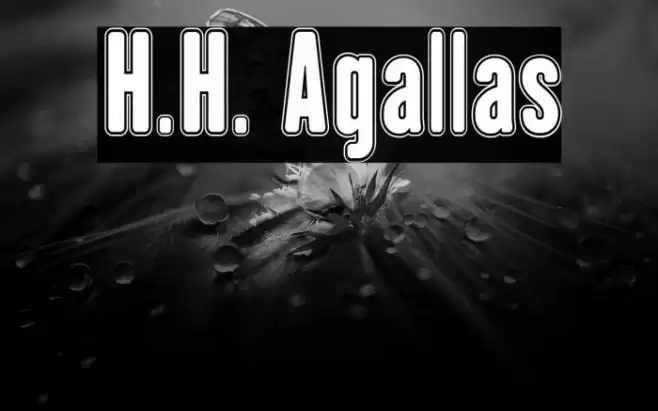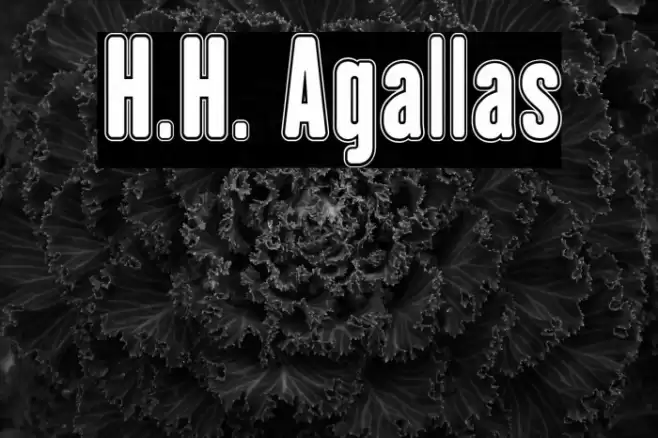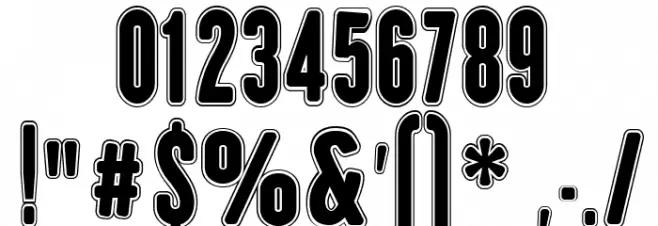
H.H. Agallas Font
H.H. Agallas Description
This font features bold, thick letters with a strong presence, making it ideal for attention-grabbing designs. The characters are outlined, adding a layer of depth and dimension. The uppercase and lowercase letters maintain a consistent style, with rounded edges that soften the overall look. The numerals are equally bold, ensuring they stand out in any context. Special characters are included, each designed to match the font's robust style. The font's design is modern and impactful, suitable for projects that require a strong visual statement.
A bold, outlined font with rounded edges and a modern, impactful style from Uncategorized fonts.
- Proposed Projects: Ideal for posters, headlines, branding materials, and any design requiring a bold statement.